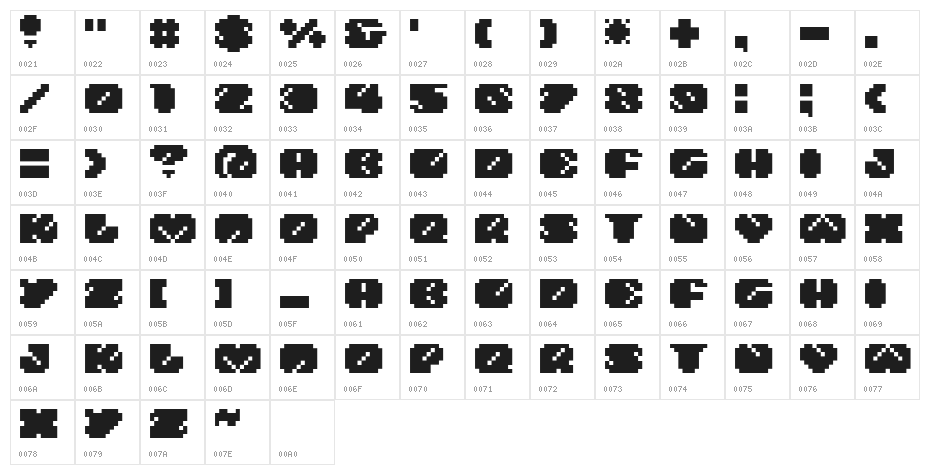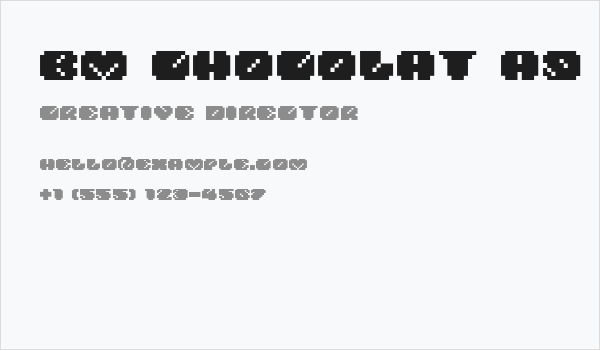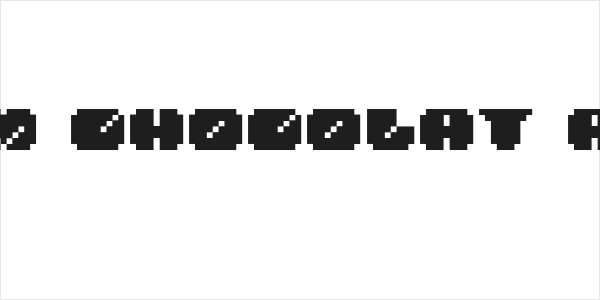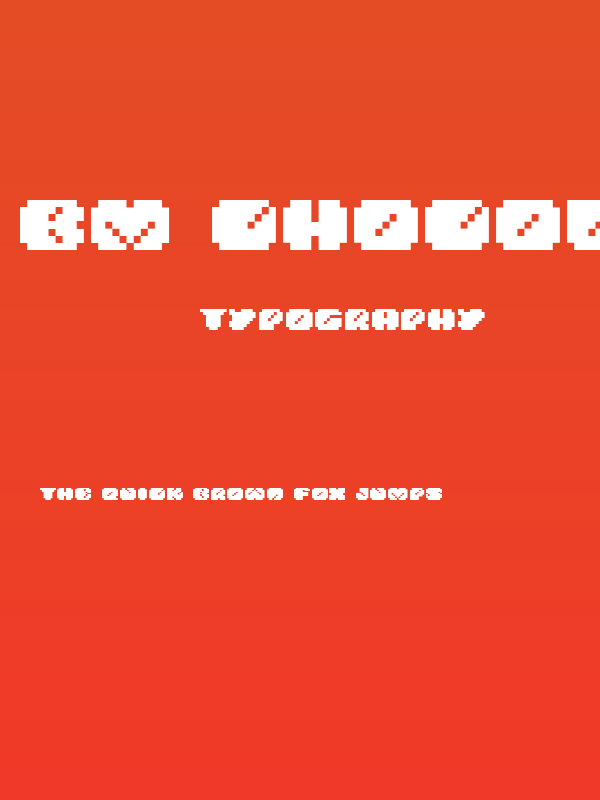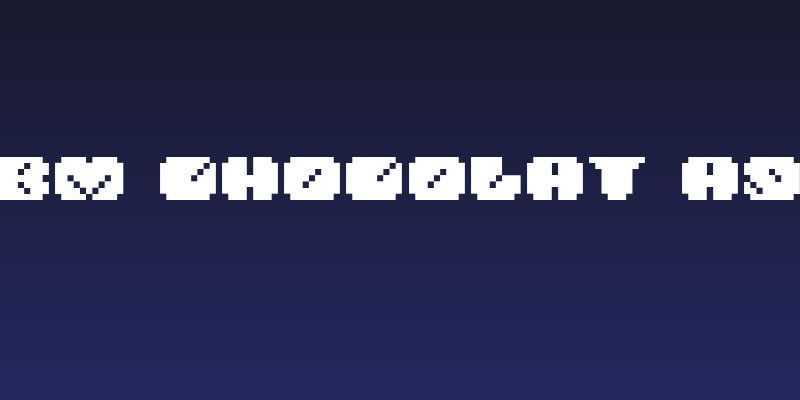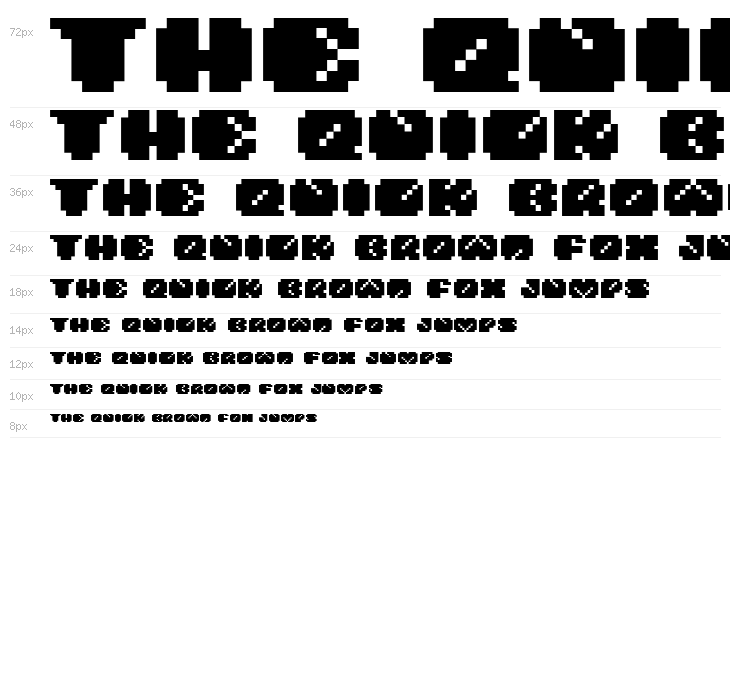
BM chocolat A9 Font
BM chocolat A9 Description
This font features a bold, pixelated style reminiscent of retro video games and digital displays. Each character is constructed with a blocky, geometric design, giving it a distinct, playful appearance. The uppercase and lowercase letters maintain a consistent height, contributing to a uniform look across text. Numbers and special characters follow the same pixelated pattern, ensuring visual coherence. The font's unique style makes it stand out, ideal for projects that require a nostalgic or tech-inspired aesthetic.
| Overall Style | Retro, Digital |
| Proposed Projects | Ideal for video game design, retro-themed posters, digital art, and tech-related branding. |